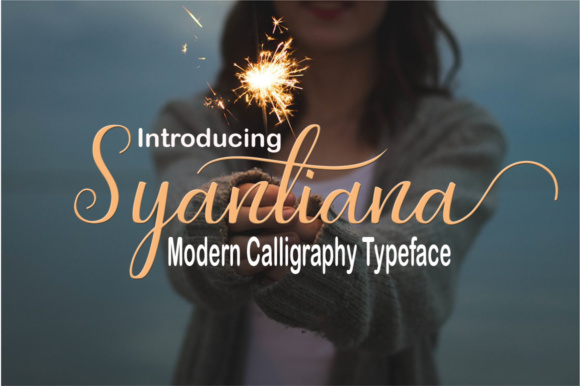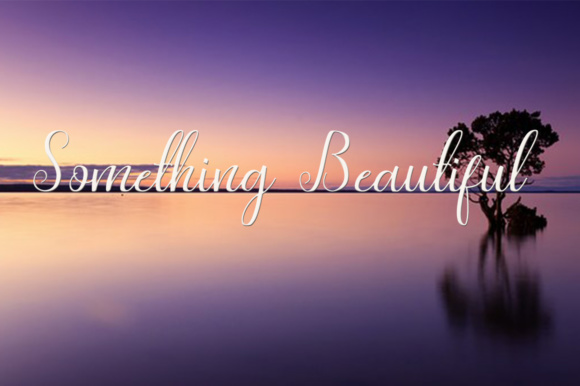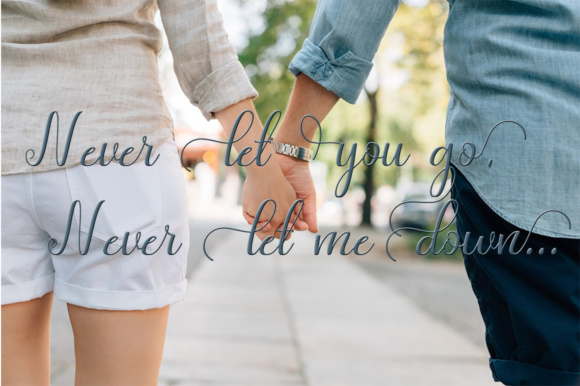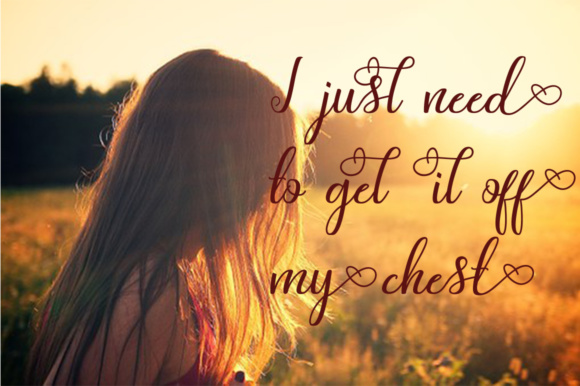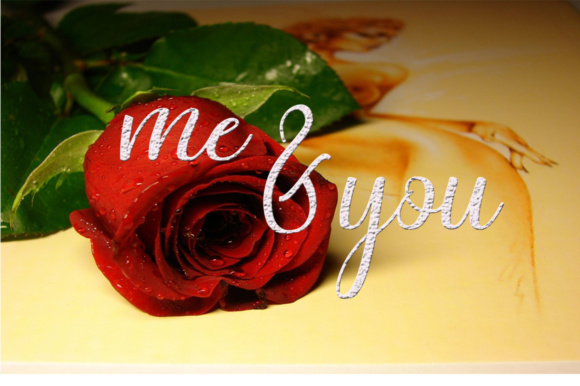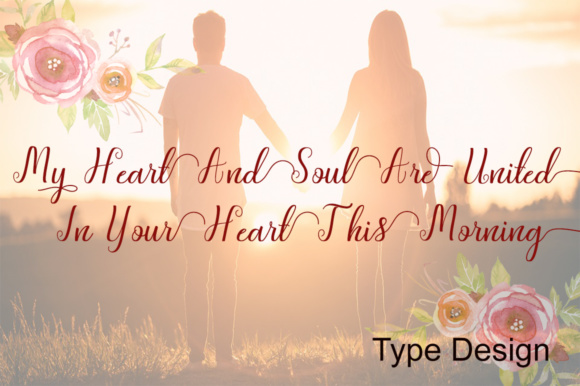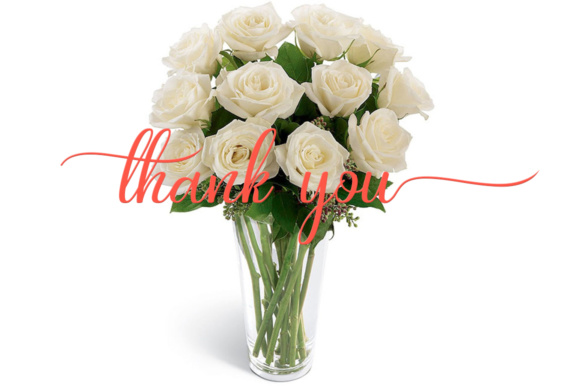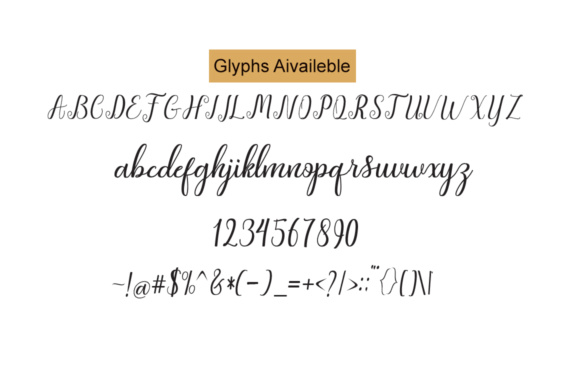
HomeScript FontsSyantiana Font Script Fonts Syantiana Font FacebookXPinterestWhatsApp Syantiana Font Poster 2 Syantiana Font Poster 3 Syantiana Font Poster 4 Syantiana Font Poster 5 Syantiana Font Poster 6 Syantiana Font Poster 7 Syantiana Font Poster 8 About Syantiana Font Syantiana is a handmade calligraphy style font with a natural style. DOWNLOAD NOW People also explored Westryder Sweetie Face Font Pinky Font Bolderis Signature Font Letter Hanger Font Reyatsumi Font Cute Animals Font Mettalia Font Calm Caylee Font 307 0 TagsSyantiana Font Previous articleBrooklyn Script FontNext articleDer Neue Spargel Font LEAVE A REPLY Cancel reply Comment: Please enter your comment! Name:* Please enter your name here Email:* You have entered an incorrect email address! Please enter your email address here Website: Save my name, email, and website in this browser for the next time I comment. Personal Use Free Mallvirra Personal Use Free Read more about this font Shrag Script Personal Use Free Read more about this font Pumpkin Type Halloween Font Personal Use Free Read more about this font Simple Personal Use Free Read more about this font BLOG 5 Fonts That Will Dominate Design Trends in 2026 5 Fonts for 2026 That Will Dominate Design Trends Typography plays a critical role in visual communication, and as we look ahead to 2026, it’s... Modern Sans-Serif Fonts That Brands Love in 2025 How to Install and Use Fonts on Windows, macOS, and Web Projects To increase your work productivity, choose the most readable fonts.